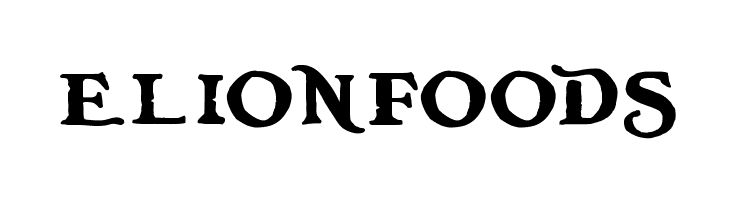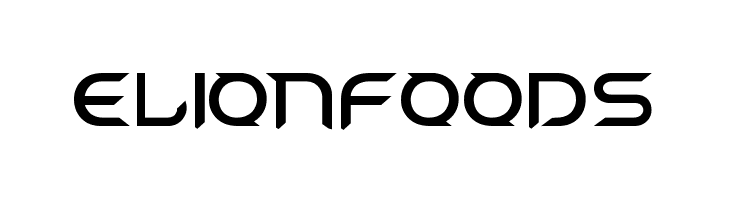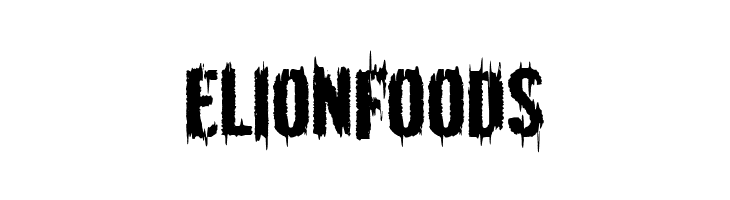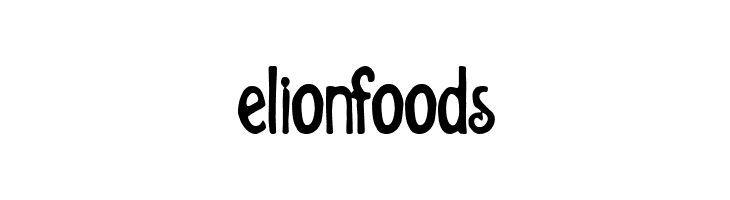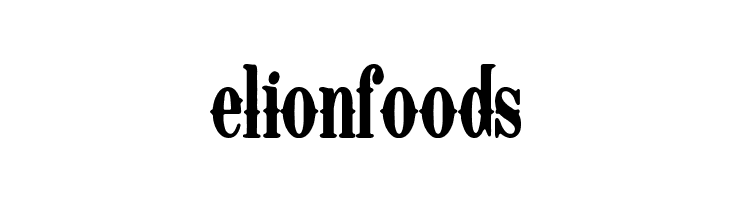
A pictogram font themed around billiards and pool.
A bold, decorative font with intricate details and a pirate-themed style.
A bold, distressed font with a vintage, industrial feel.
A bold, medieval-inspired font with dramatic strokes and ornate details.
A futuristic, angular font with bold geometric shapes and sharp edges.
A Resident Evil-themed pictorial font with character and logo silhouettes.
A rugged, distressed font with jagged edges and a bold, dramatic appearance.
A whimsical, bold font with playful, hand-drawn characteristics.
A bold, decorative font with a vintage style and subtle serifs.
A bold, distressed font with a rugged, vintage appearance.